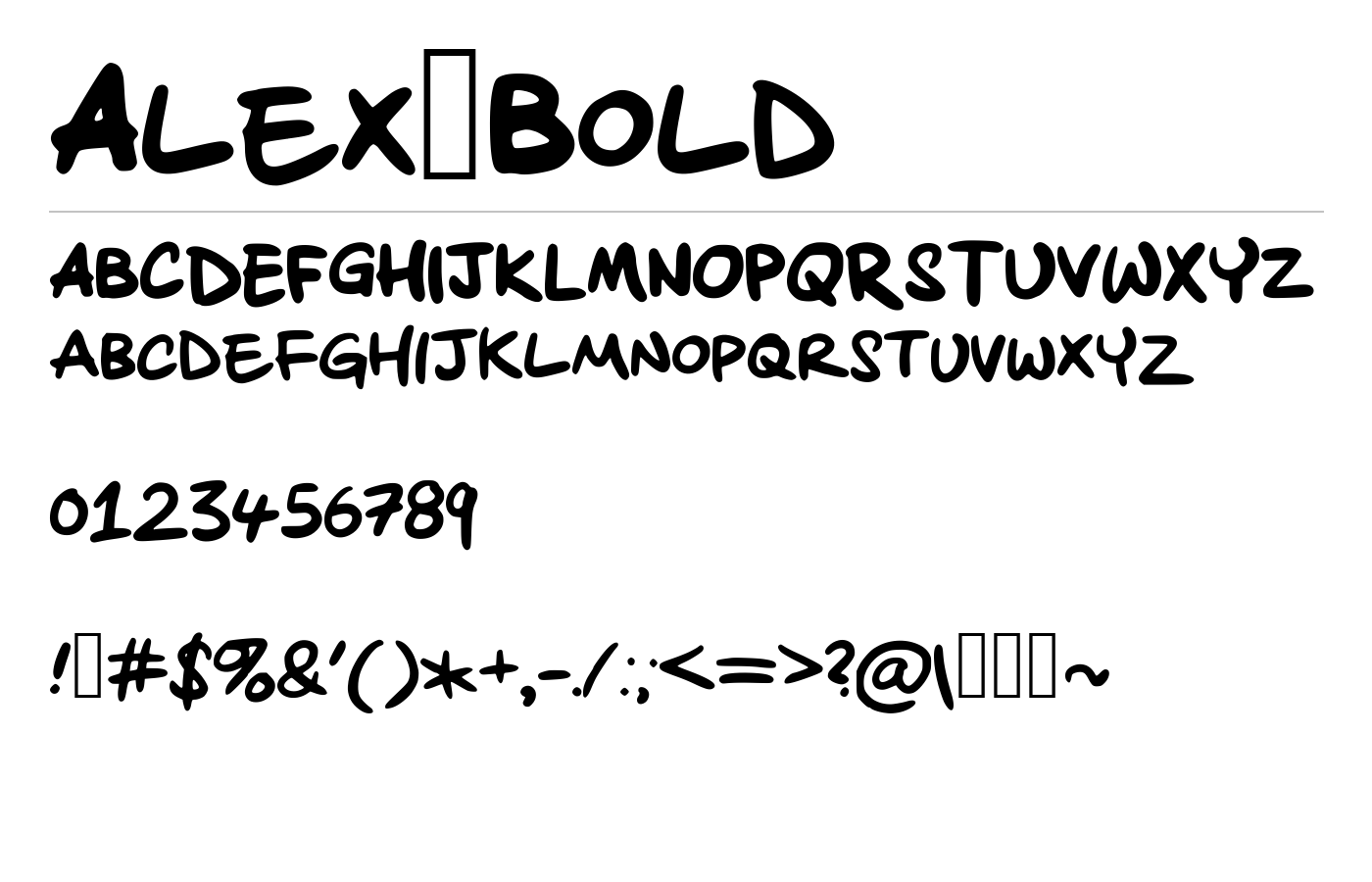
Alex_Bold is a lively and bold handwritten sans serif font with a casual, playful feel. Its thick, rounded strokes and irregular shapes make it perfect for projects that need a friendly and approachable touch, such as children's books, informal branding, or creative posters. This font works well in headlines and display uses where personality and warmth are key.
Alex_Bold Font